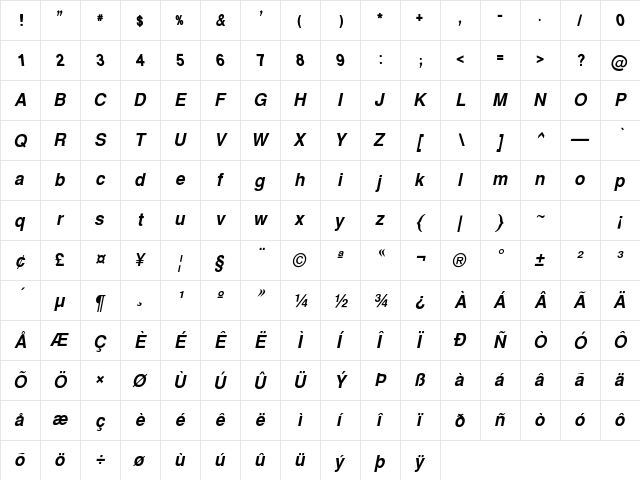
WinSoft Pro Bold Italic Font Preview
Design Context for WinSoft Pro Typeface
WinSoft Pro takes a measured approach to typography — its balanced proportions and neutral character make it a reliable workhorse for both digital and print work. The slanted form adds forward momentum and visual energy. The heavy weight commands attention and anchors typographic hierarchies.
Pro Tip: Try WinSoft Pro for annotation and caption copy alongside an upright companion — the contrast in angle creates a dynamic but ordered typographic system.